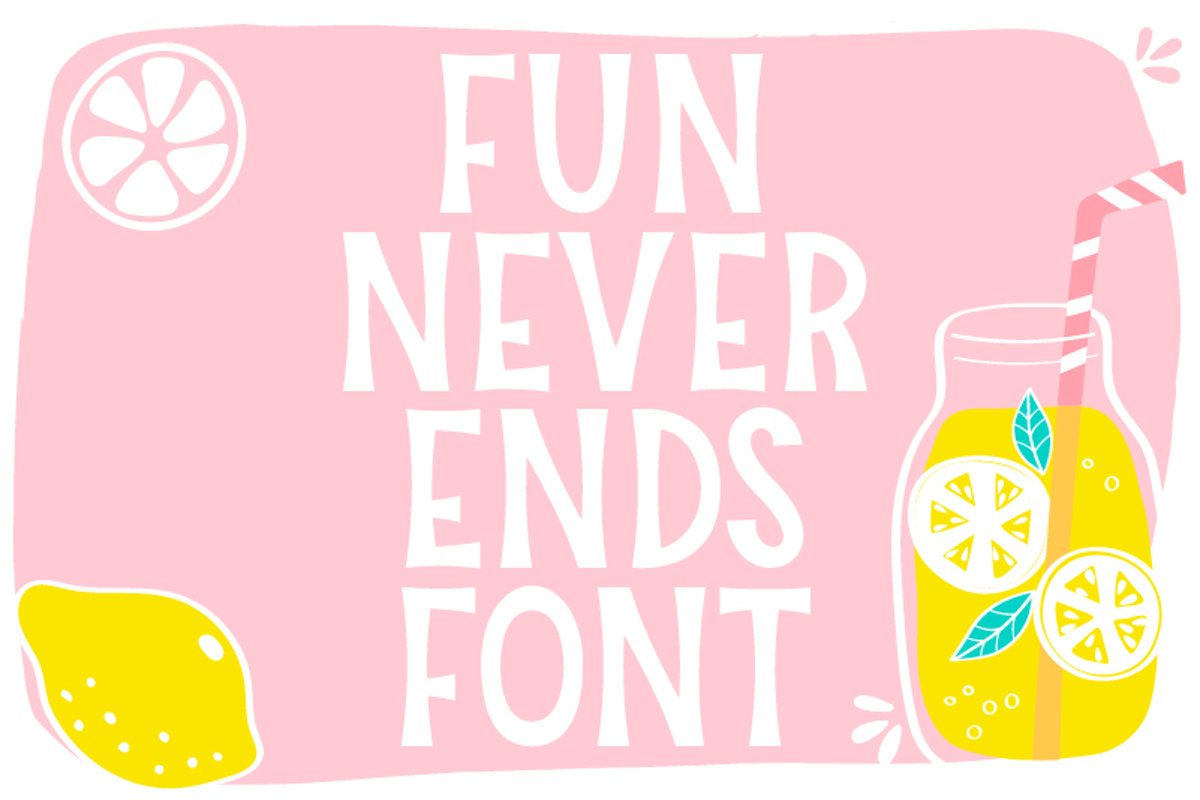
Fun Never Ends Font
Fun Never Ends Font, made exclusively by LoveSVG.com, is a cut friendly font compatible with Cricut, Silhouette, SCAL and Scan N Cut. Its thickness makes it an ideal font for making cut files.
• Uppercase, numbers & punctuation